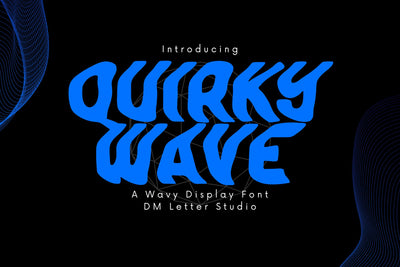
Quirky Wave
Quirky Wave – Playful & Wavy Display Font
Quirky Wave is a lighthearted and dynamic font that brings a splash of fun to any design. Featuring wavy letterforms with a hand-drawn feel, this typeface is ideal for summer-themed projects, playful branding, kids' designs, and bold creative expressions. Its flowing, offbeat style adds an energetic and carefree personality wherever it's used.
Wavy & Whimsical Style: Unique wave-like movement in each letter for a lively look.
Hand-Drawn & Playful Feel: Adds charm and personality to any layout.